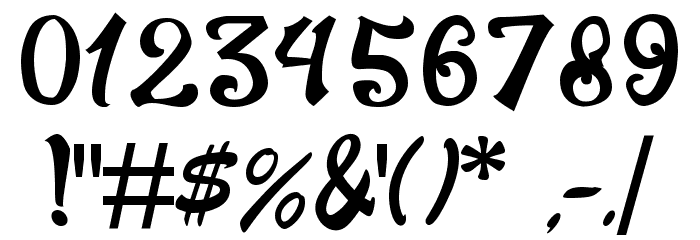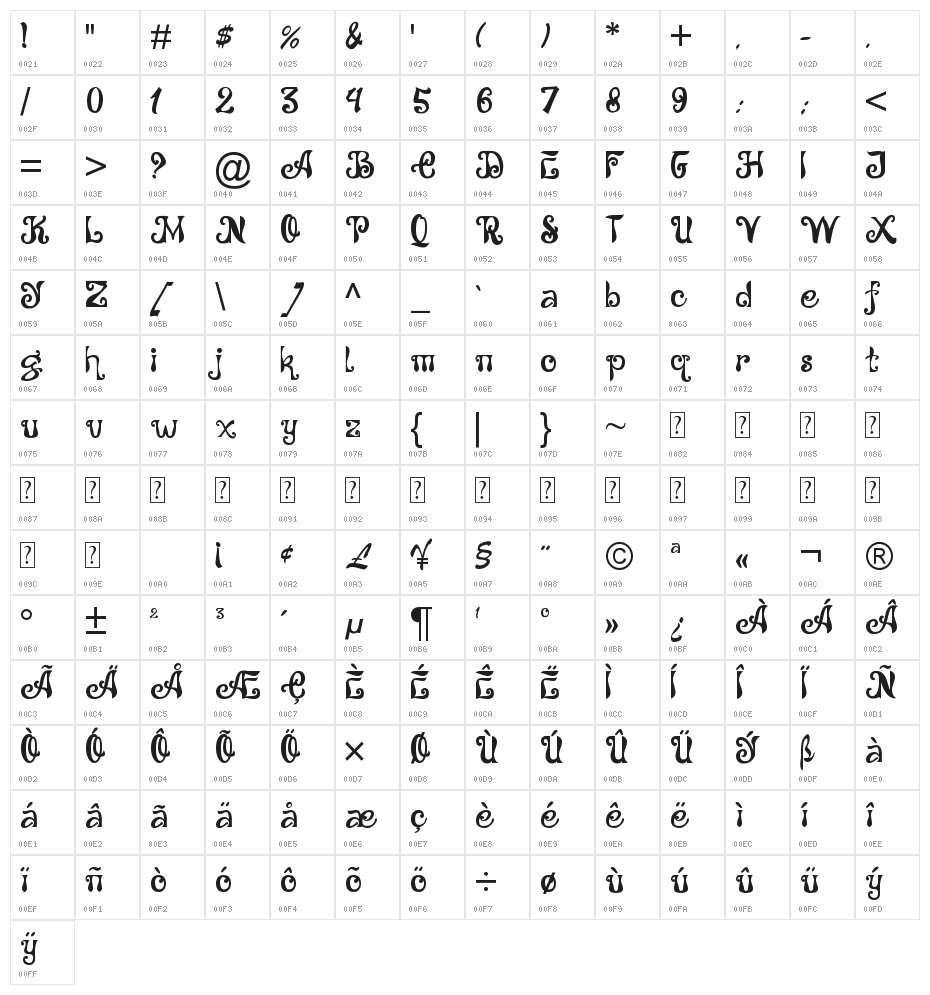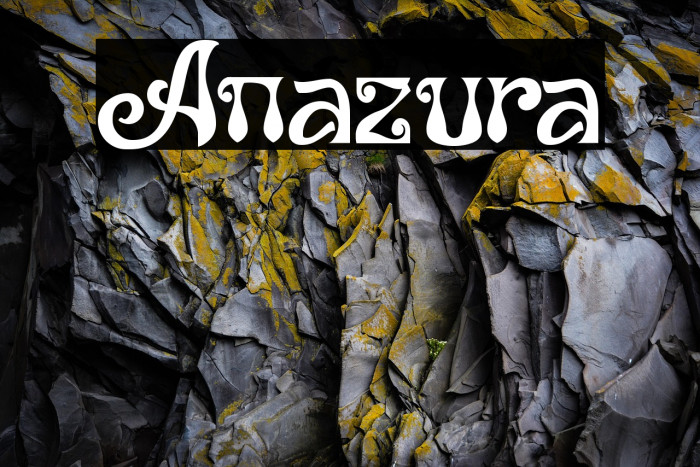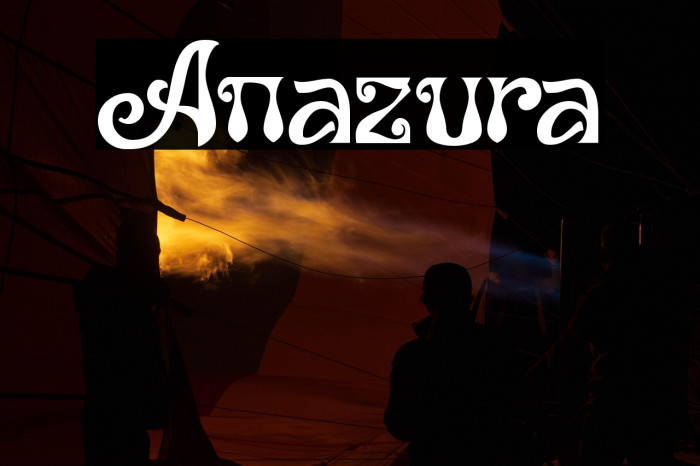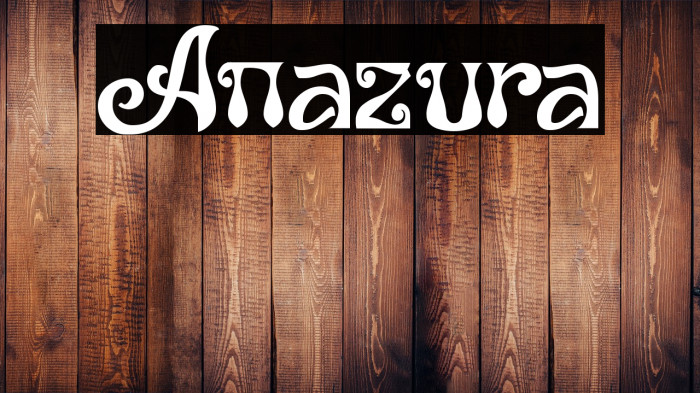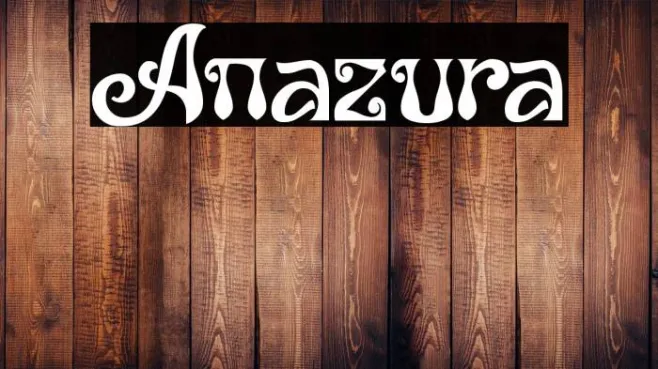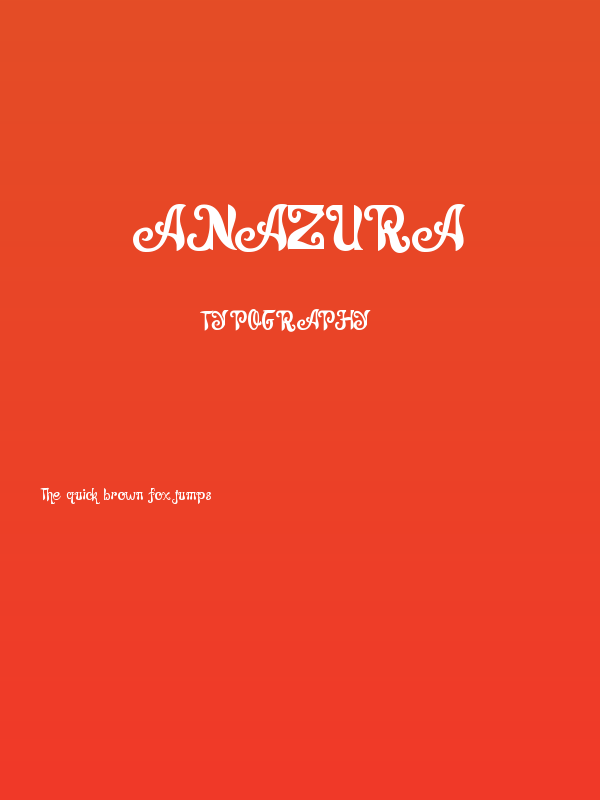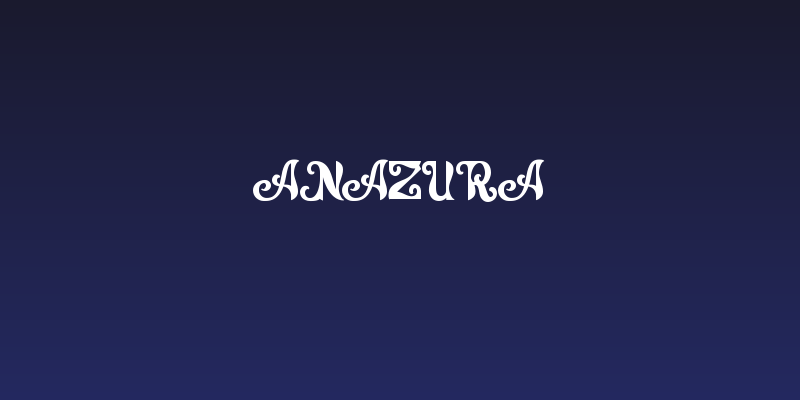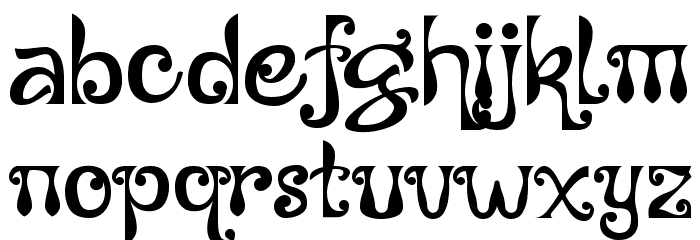
Anazura Font
Anazura Description
This font features an ornate and decorative style with intricate curls and swirls that give it a whimsical and artistic appearance. The uppercase letters are bold and elaborate, with unique embellishments that make each character stand out. The lowercase letters maintain the decorative theme, with fluid curves and playful loops. The numerals are equally stylized, offering a cohesive look throughout the font. Special characters are designed with the same attention to detail, ensuring consistency in style. This font is ideal for projects that require a touch of elegance and creativity.
| Use Case | Headlines, Logos, Artistic projects |
| Proposed Projects | Perfect for invitations, greeting cards, posters, and artistic branding. |